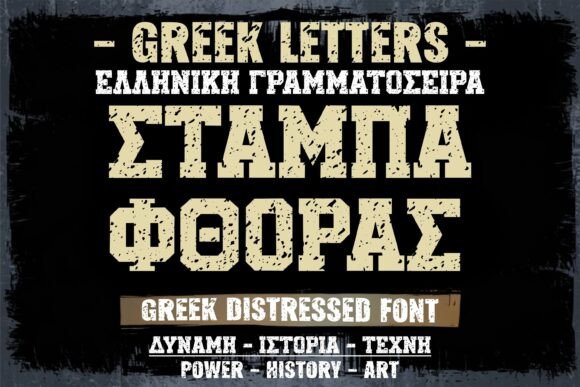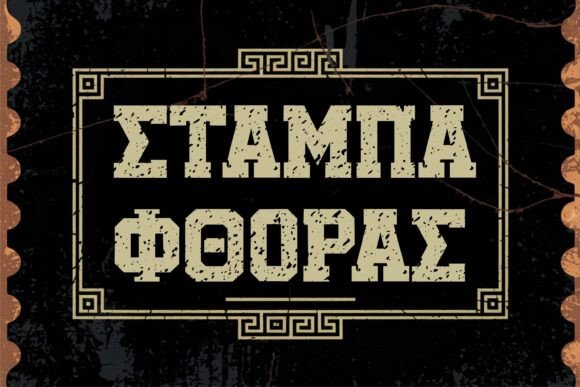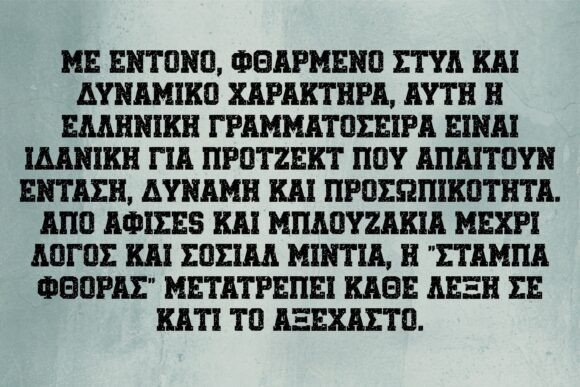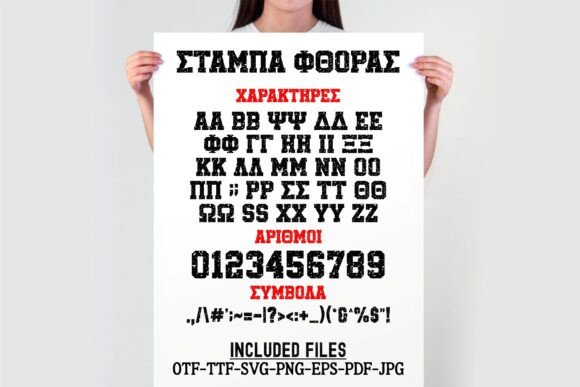
Stampa Fthoras Font
About the Stampa Fthoras Font
The wait is over! The incredible Stampa Fthoras Font is now available for your design toolkit. This bold Greek Letters Font brings ancient vibes and modern edge with a distressed, textured finish. Designed for standout projects, it includes the full Greek alphabet in OTF, TTF, SVG, DXF, EPS, PDF, AI, and CDR formats. Use it for t-shirts, signs, posters, digital projects, and more. The Greek Font SVG version works seamlessly with Cricut and cutting software. Inspired by strength, art, and history, this Greek Distressed Font gives your designs a bold, unforgettable personality. Perfect for everything from branding to decor!
Stampa Fthoras Font Usage Examples
Stampa Fthoras Font Example